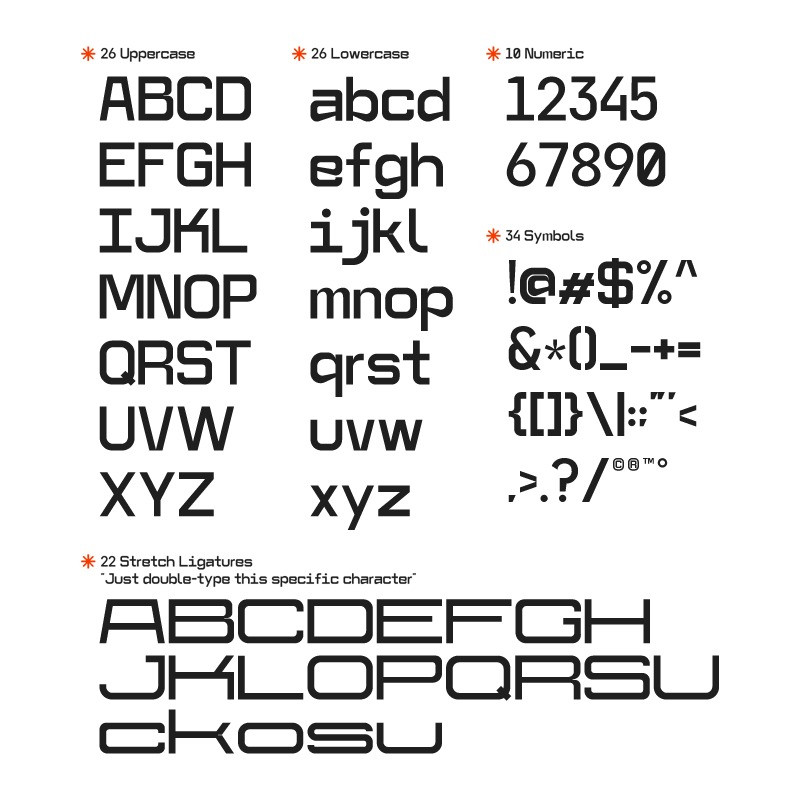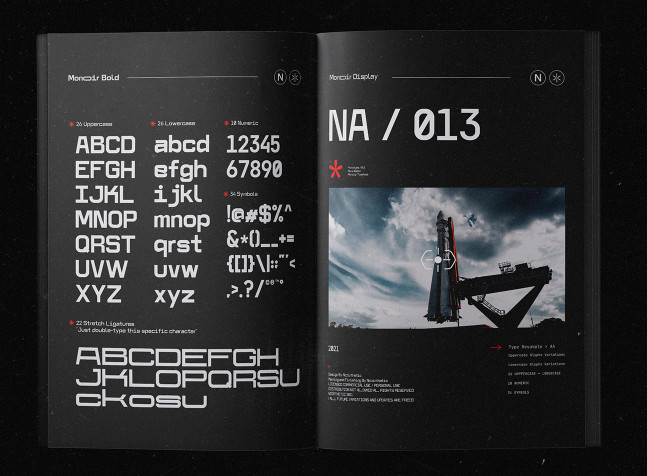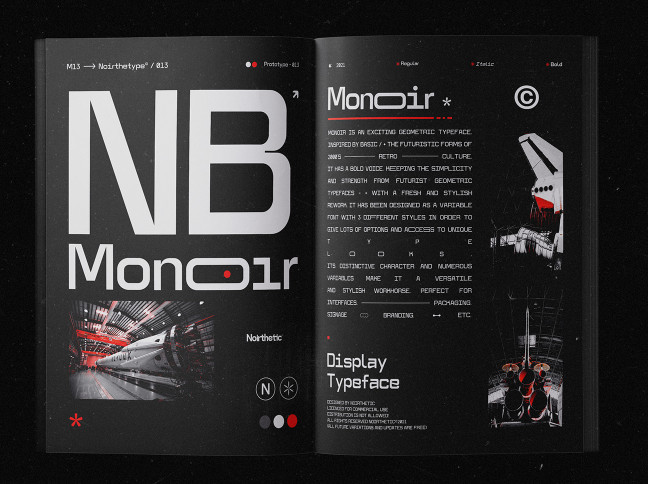
Monoir Font
Monoir Sans Serif Font, is a sans serif font. This font is suitable for logo design, Social Network, Movie Title, Book Title, a short text even a long letter and is suitable for your sub-font with script or signature.